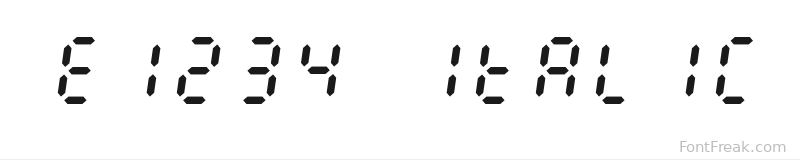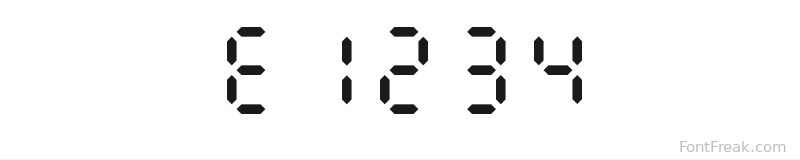
E1234 Italic
E1234
About E1234 Italic
E1234 Italic by GGBot is a contemporary display font that effortlessly combines modern aesthetics with functionality. This font features a sleek, geometric design characterized by clean lines and a stylish italic slant. The stroke weight is consistent, offering a balanced appearance that captures attention without overpowering the surrounding elements. The letters exhibit a subtle contrast that enhances readability, making it ideal for various applications. The spacing is well-considered, ensuring clarity even in longer texts, while the understated decorative elements add a touch of sophistication.
This font is particularly well-suited for a range of creative projects. It shines in contexts like wedding invitations, where its elegant flair can elevate the overall design. Additionally, E1234 Italic can be effectively used in movie posters, bringing a modern twist to promotional materials. Restaurant menus benefit from its stylish yet readable nature, making it an excellent choice for showcasing dish names or daily specials. Furthermore, graphic designers can leverage this font for branding projects, creating memorable logos that stand out. Content creators will find it perfect for social media graphics, where eye-catching typography is essential for engagement.
What sets E1234 Italic apart is its versatility and contemporary style, allowing it to adapt seamlessly across various mediums. The combination of sleek design and functionality makes it a standout choice for those aiming to elevate their typography. Experience the elegance and modernity of E1234 Italic font free download today and enhance your creative projects.